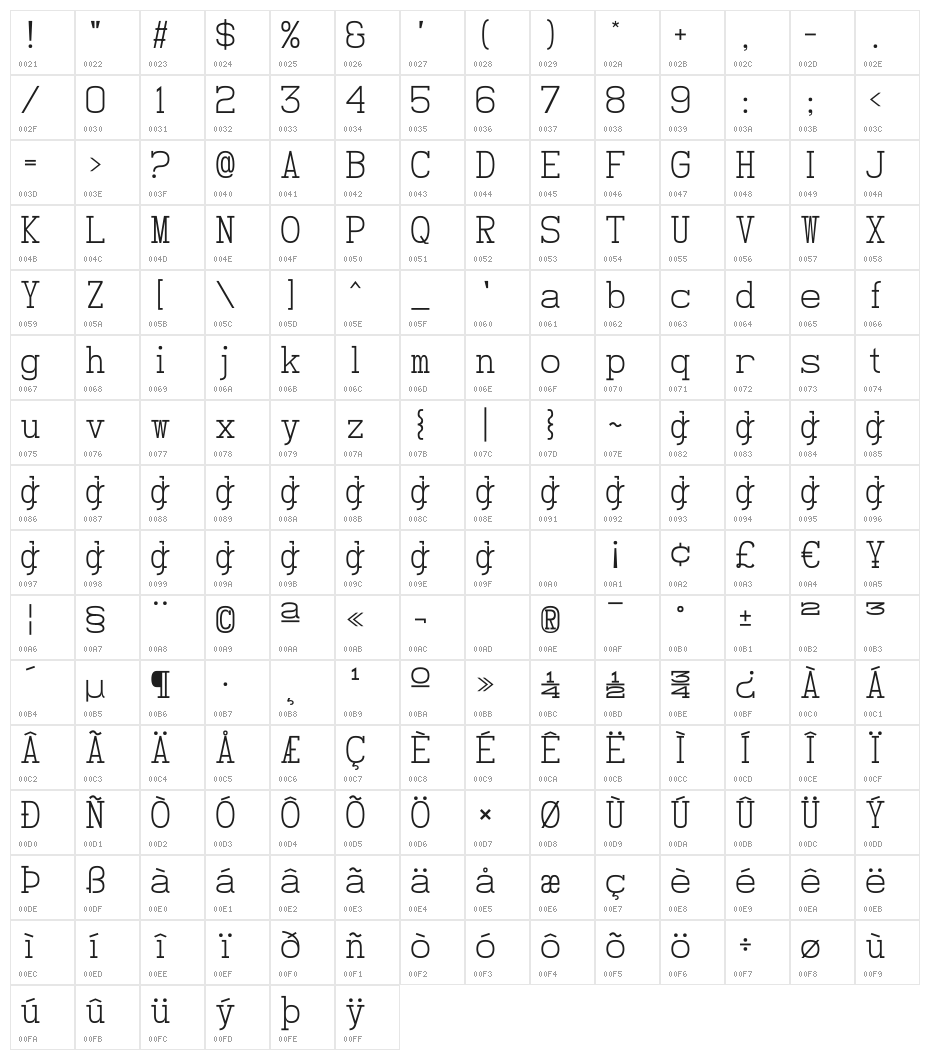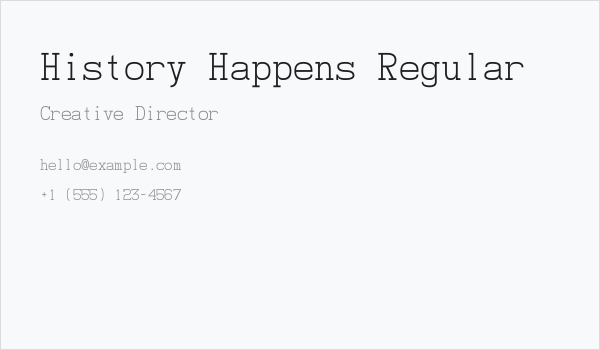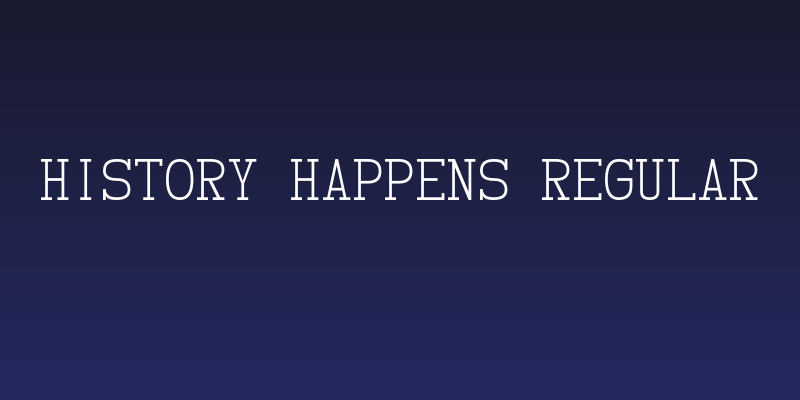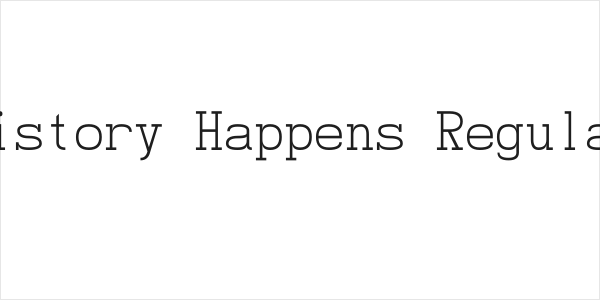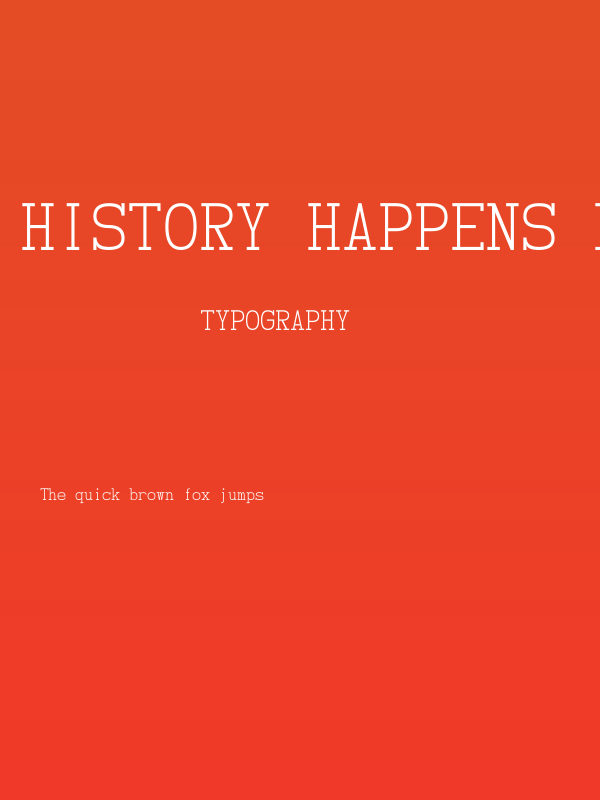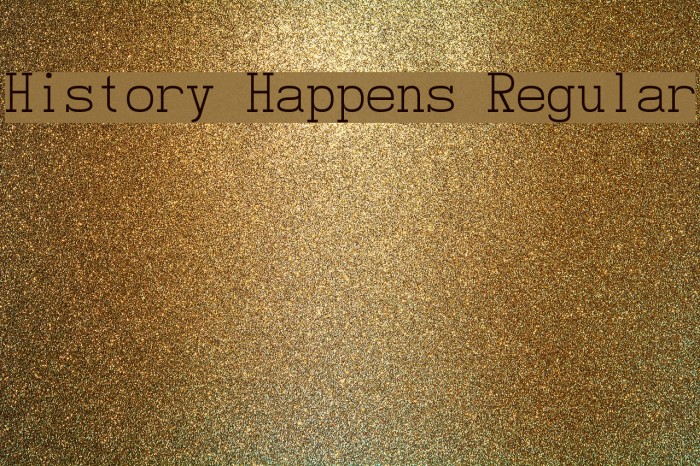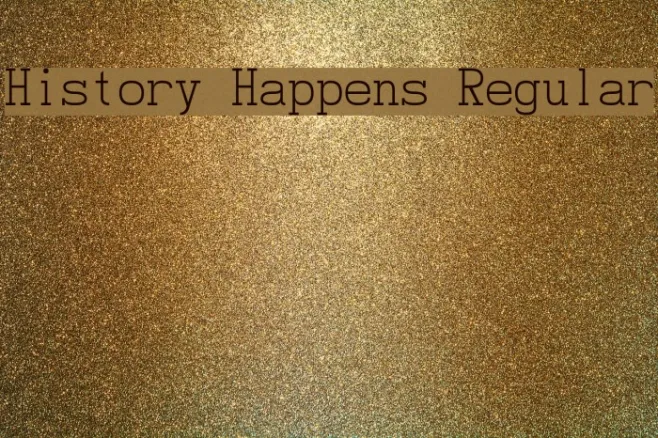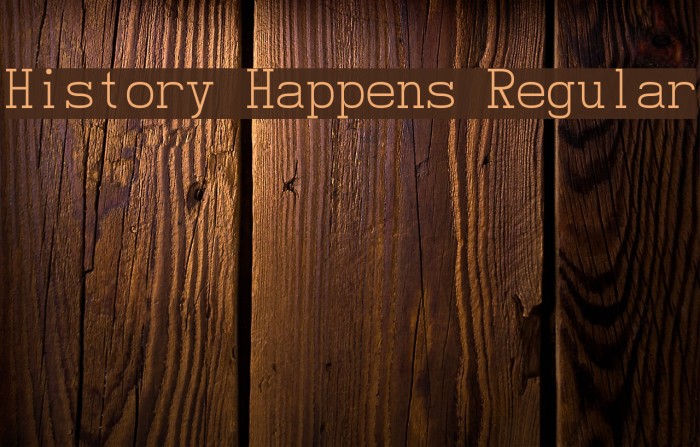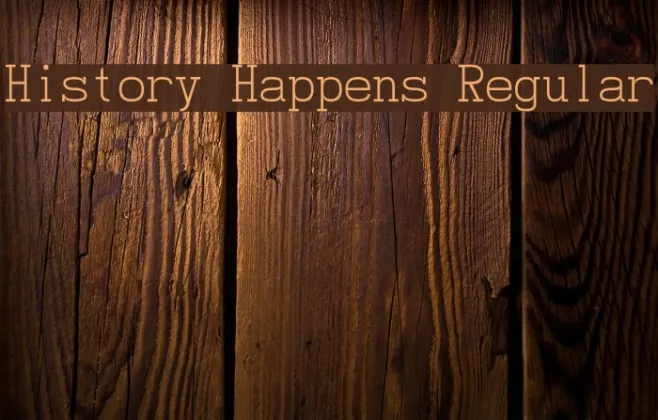
History Happens Regular Font
History Happens Regular Description
This font features a clean and modern design with a monospaced style, characterized by uniform character width. The uppercase and lowercase letters maintain a consistent height, providing a balanced and structured appearance. The numerals and special characters are designed with clarity and precision, making them easily readable. The font's simplicity and straightforwardness make it versatile for various applications, from technical documents to creative projects. Its geometric shapes and straight lines give it a contemporary feel, while the monospaced nature ensures alignment and uniformity across text.
| Use Case | Coding, Technical documents, Design projects |
| Proposed Projects | Ideal for coding, technical documents, and design projects requiring precise alignment. |